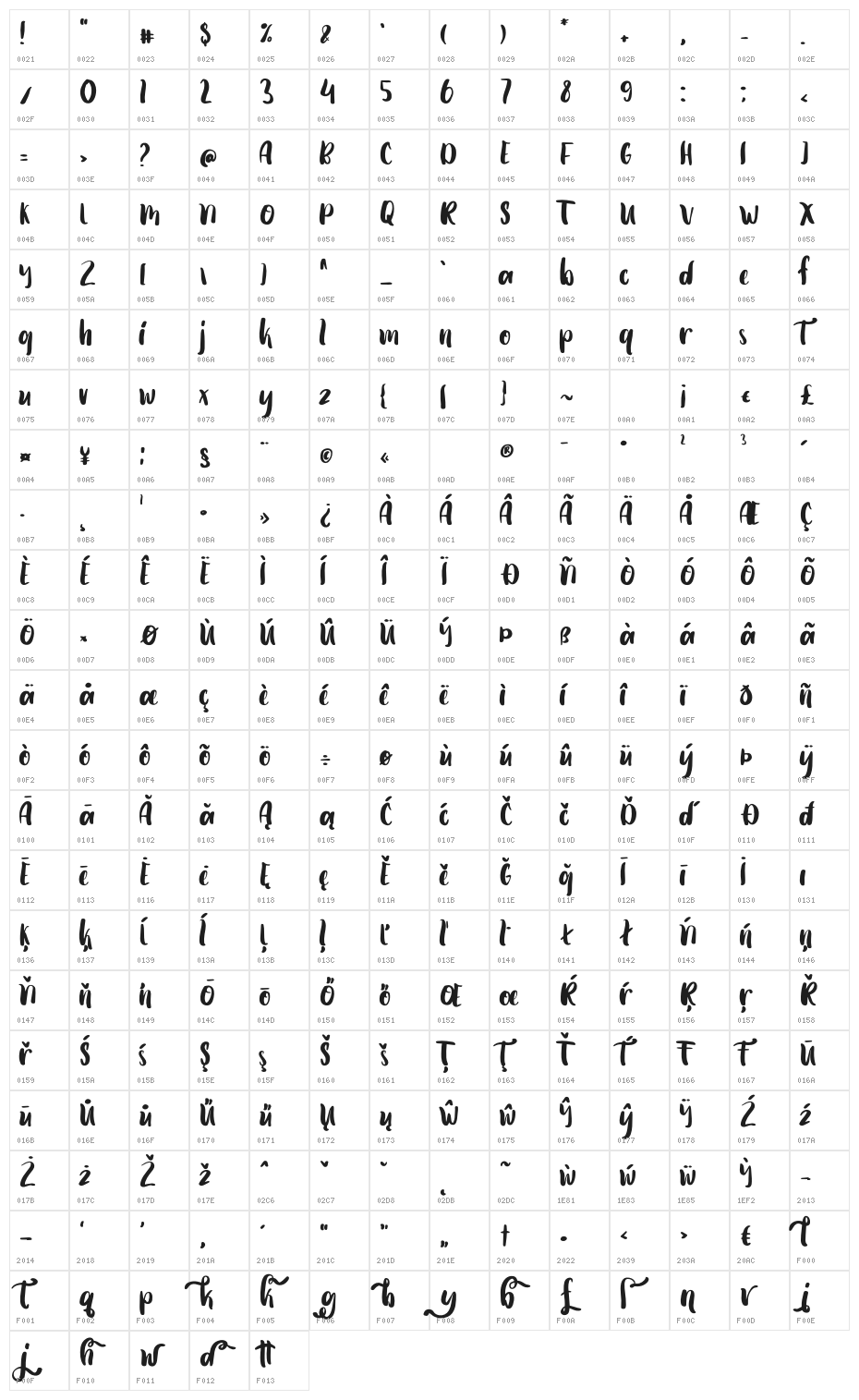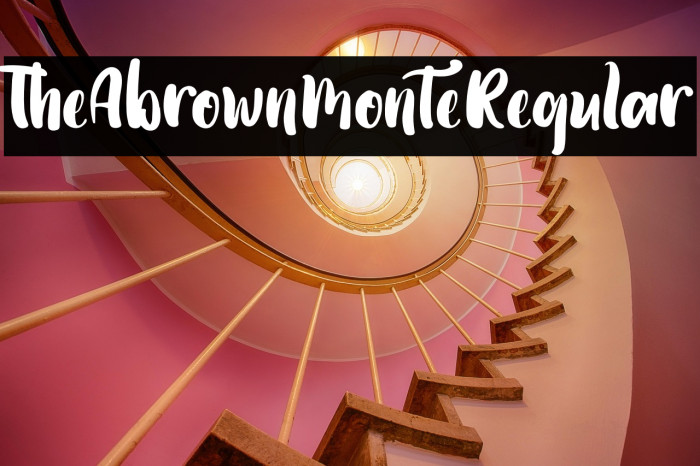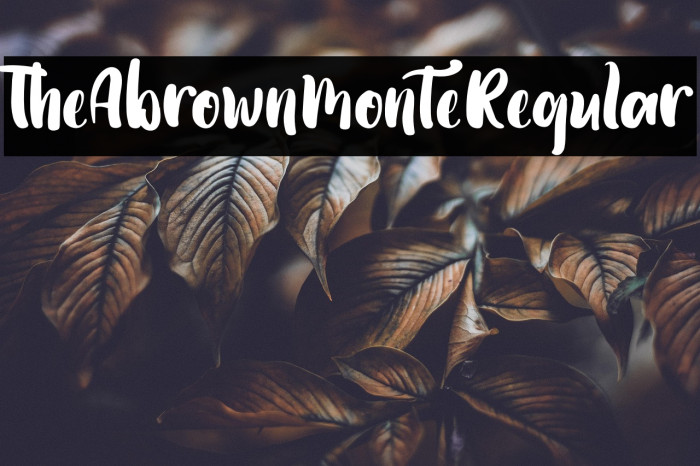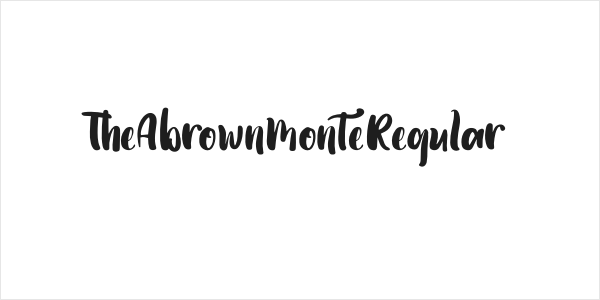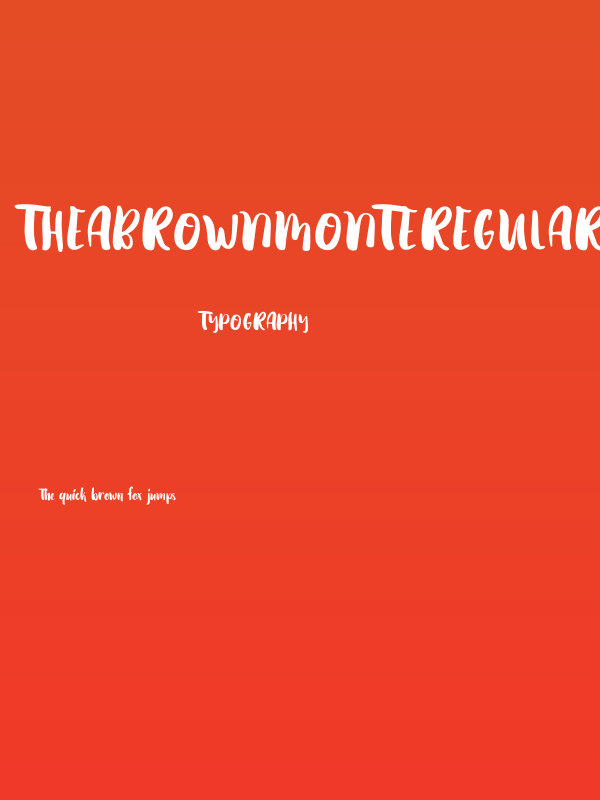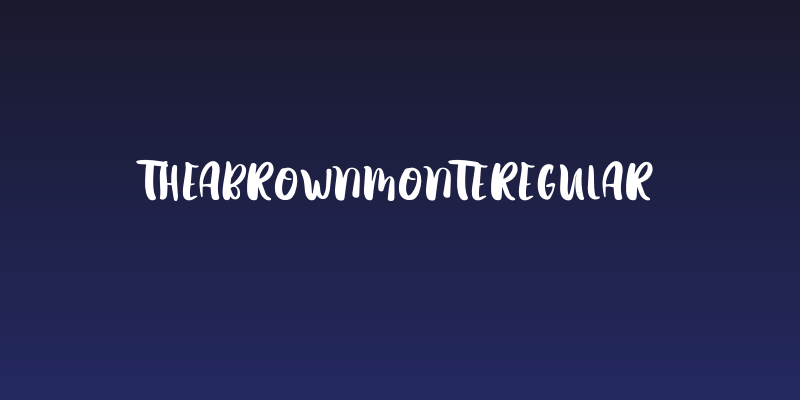
TheAbrownMonteRegular Font
TheAbrownMonteRegular Description
This font features a bold and playful handwritten style, characterized by its thick strokes and smooth curves. The uppercase letters are tall and slightly condensed, giving a sense of energy and movement. The lowercase letters maintain a consistent flow, with some characters having unique, whimsical touches that add personality. Numbers are bold and easy to read, while special characters are creatively designed to match the overall aesthetic. The font's informal and lively appearance makes it suitable for projects that require a personal touch.